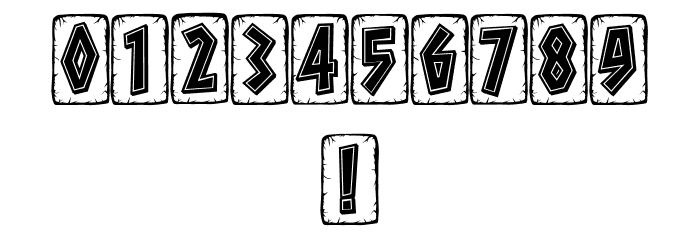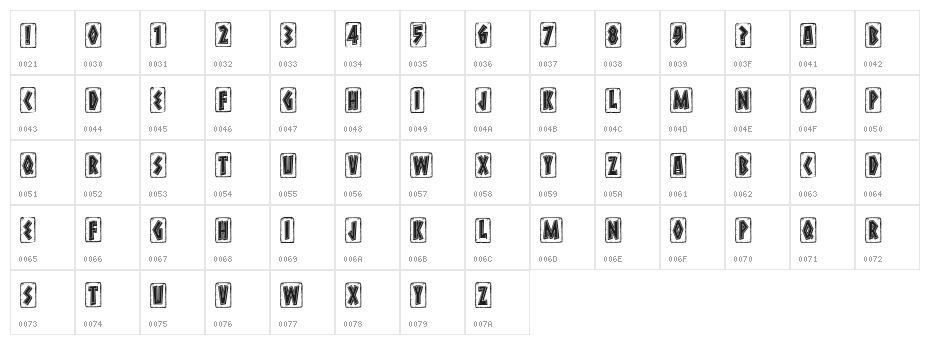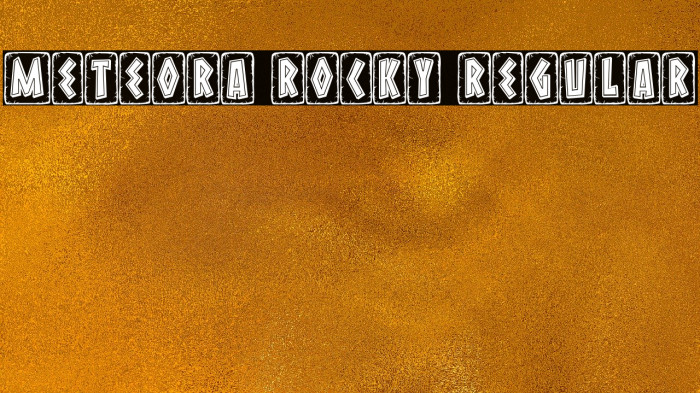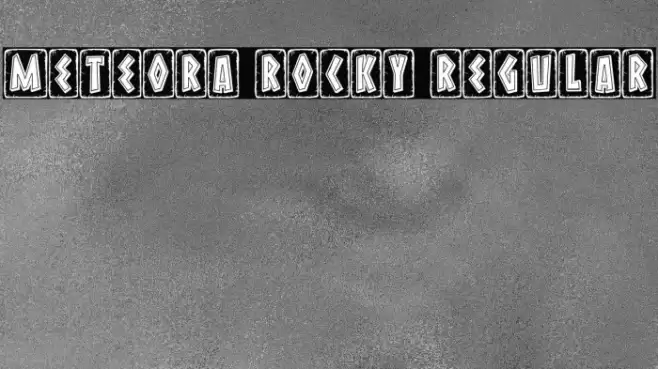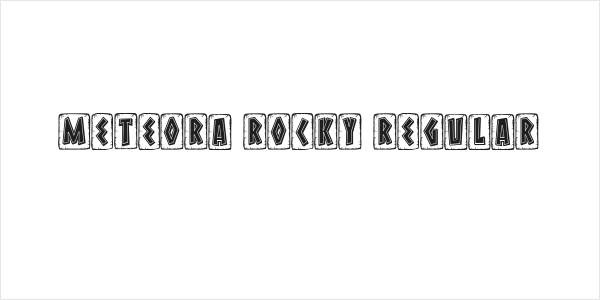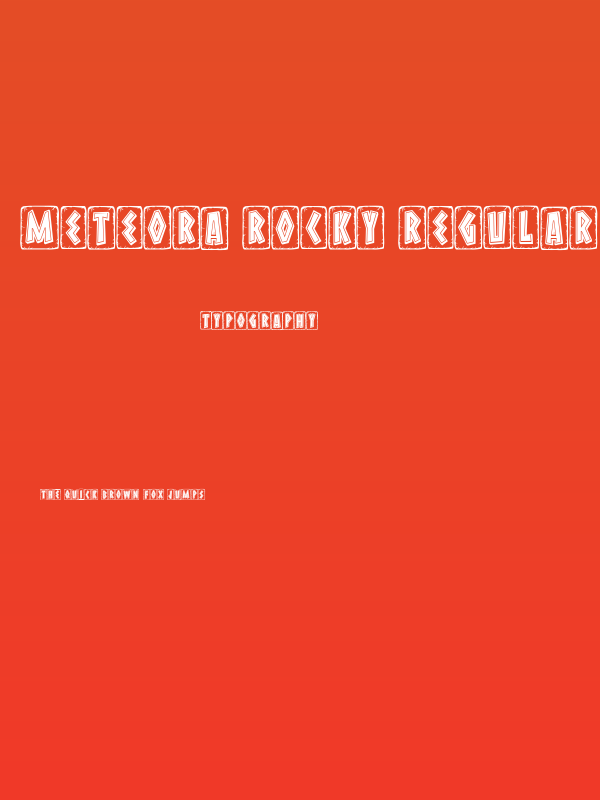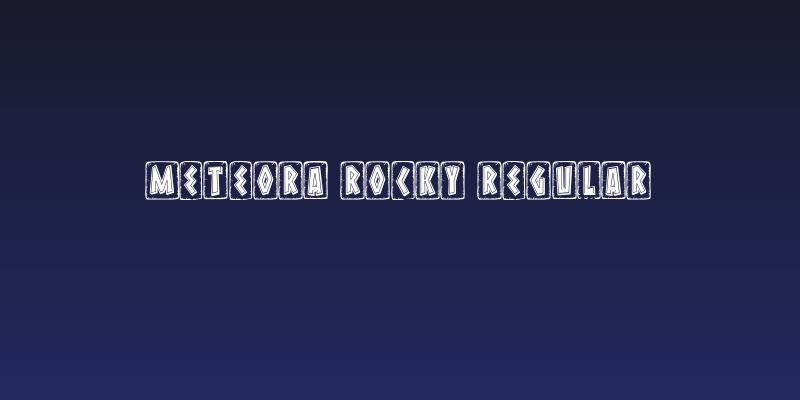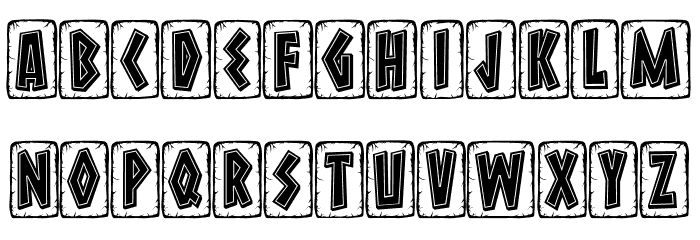
Meteora Rocky Regular Font
Meteora Rocky Regular Description
This font features a rugged, hand-drawn style with a rocky texture that gives each character a distinct, bold appearance. The letters are enclosed in rectangular shapes, adding a structured yet playful element. The irregular edges and textured lines evoke a sense of natural, organic movement, reminiscent of rock formations. This unique style is both eye-catching and memorable, making it suitable for projects that require a strong visual impact. The font includes uppercase and lowercase letters, numbers, and a selection of special characters, all maintaining the same textured, rocky aesthetic.
| Proposed Projects | Ideal for adventure-themed posters, rock music album covers, outdoor event branding, and creative logos. |